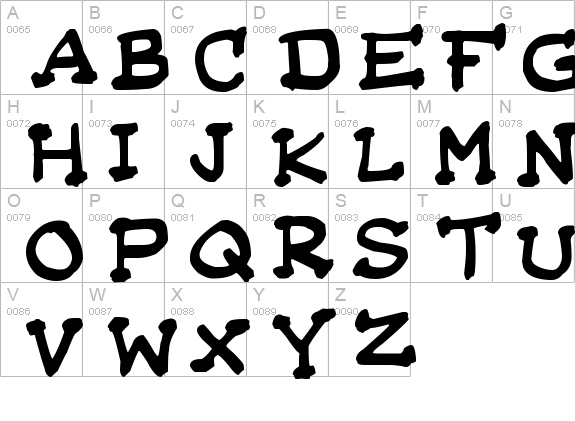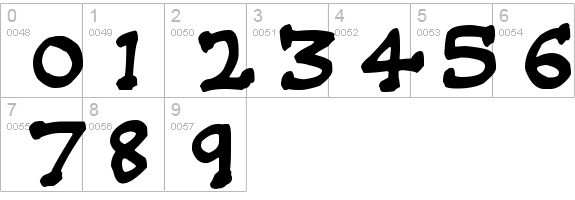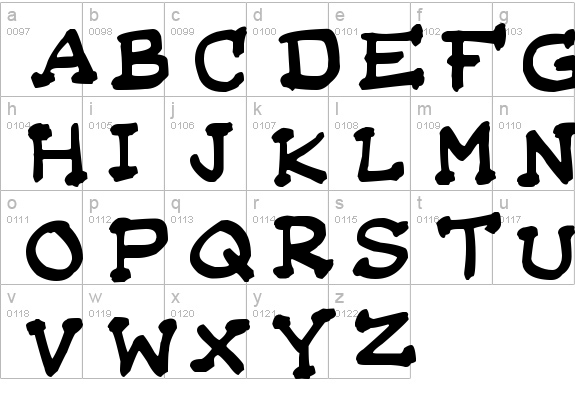
Da Serif Kid Font Details
Da Serif Kid is a charming and playful font that exudes a sense of whimsy and creativity. Its unique serif design gives it a touch of sophistication while still maintaining a fun and youthful vibe. Perfect for projects that require a balance between professionalism and a lighthearted feel, this font is sure to make your designs stand out.